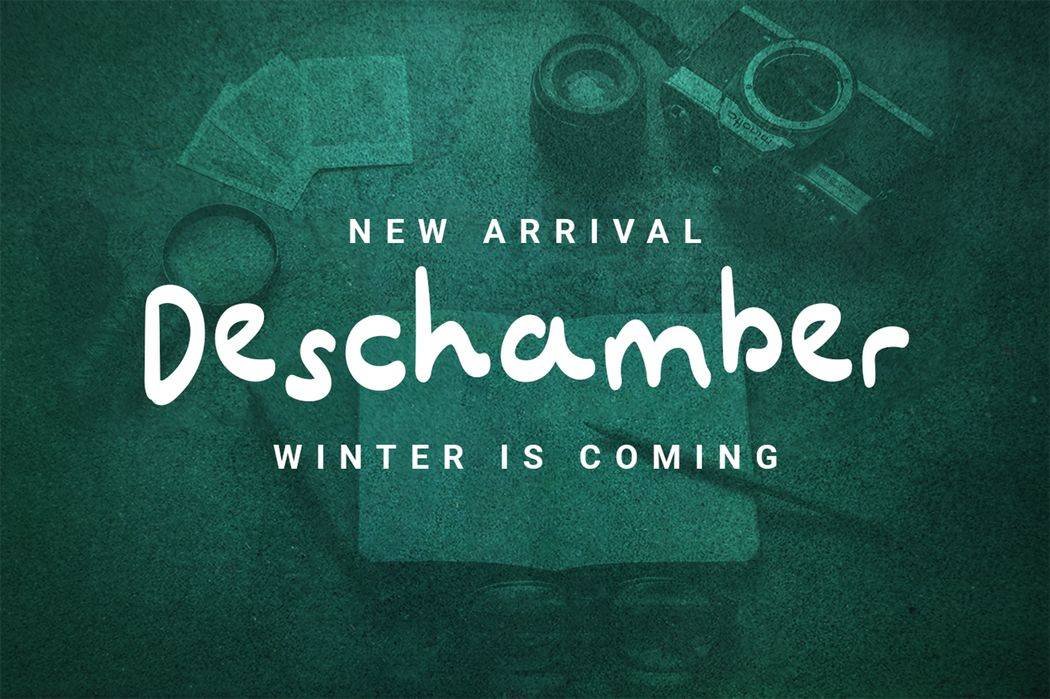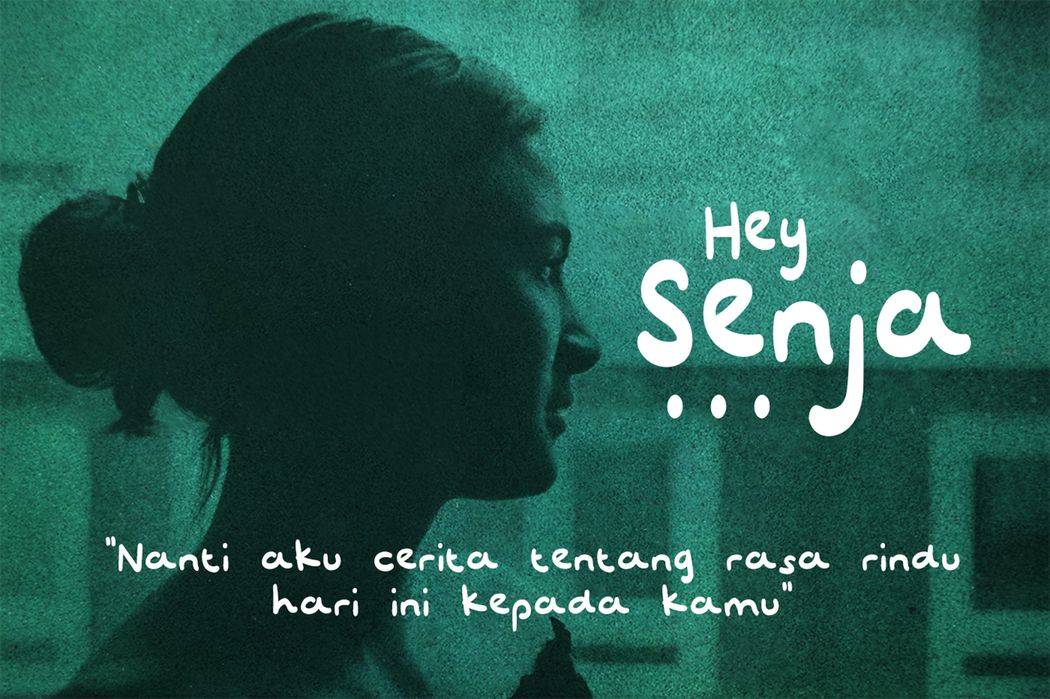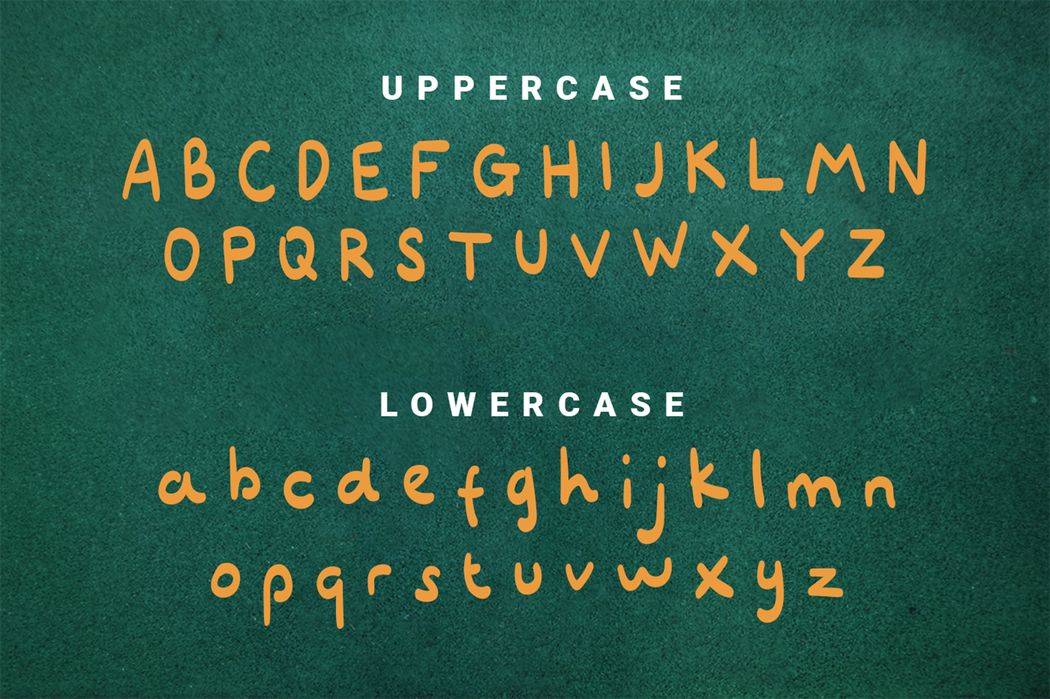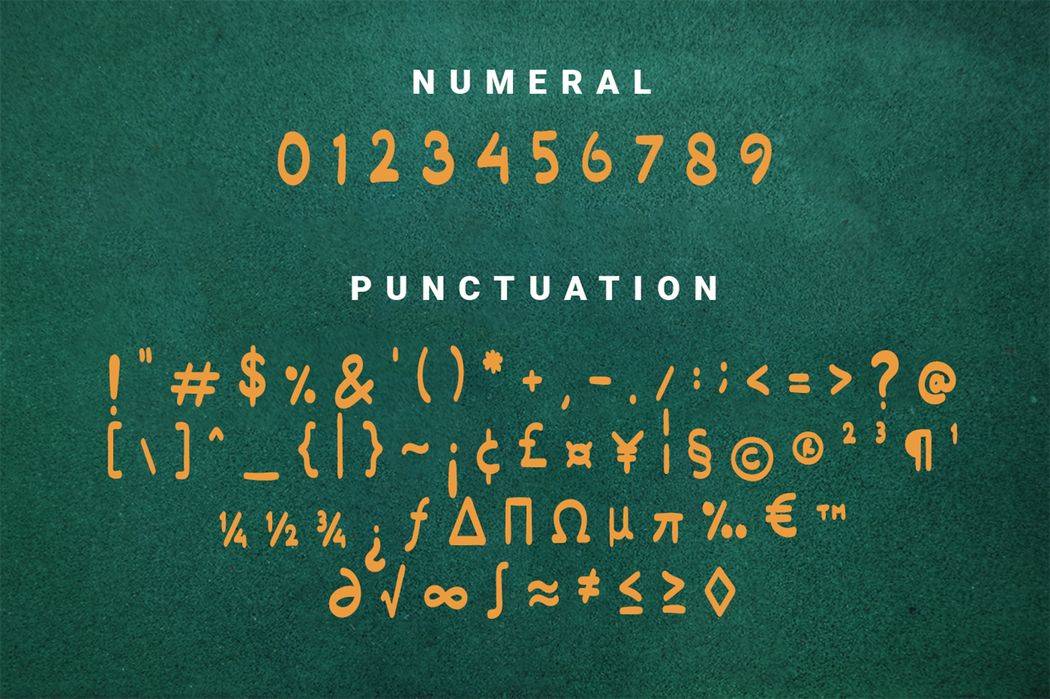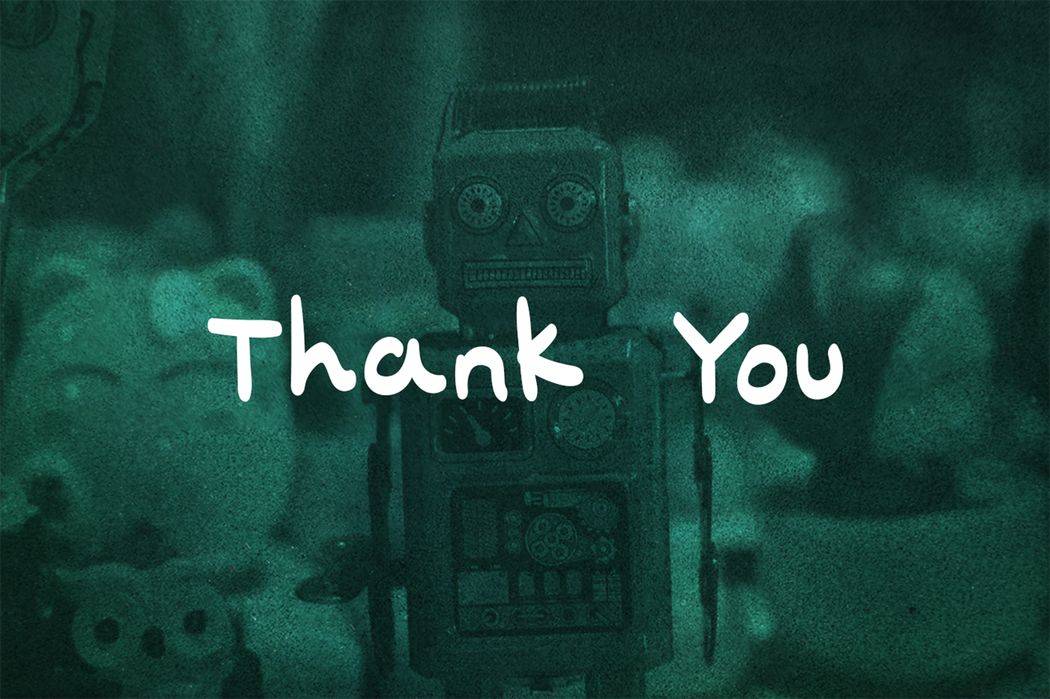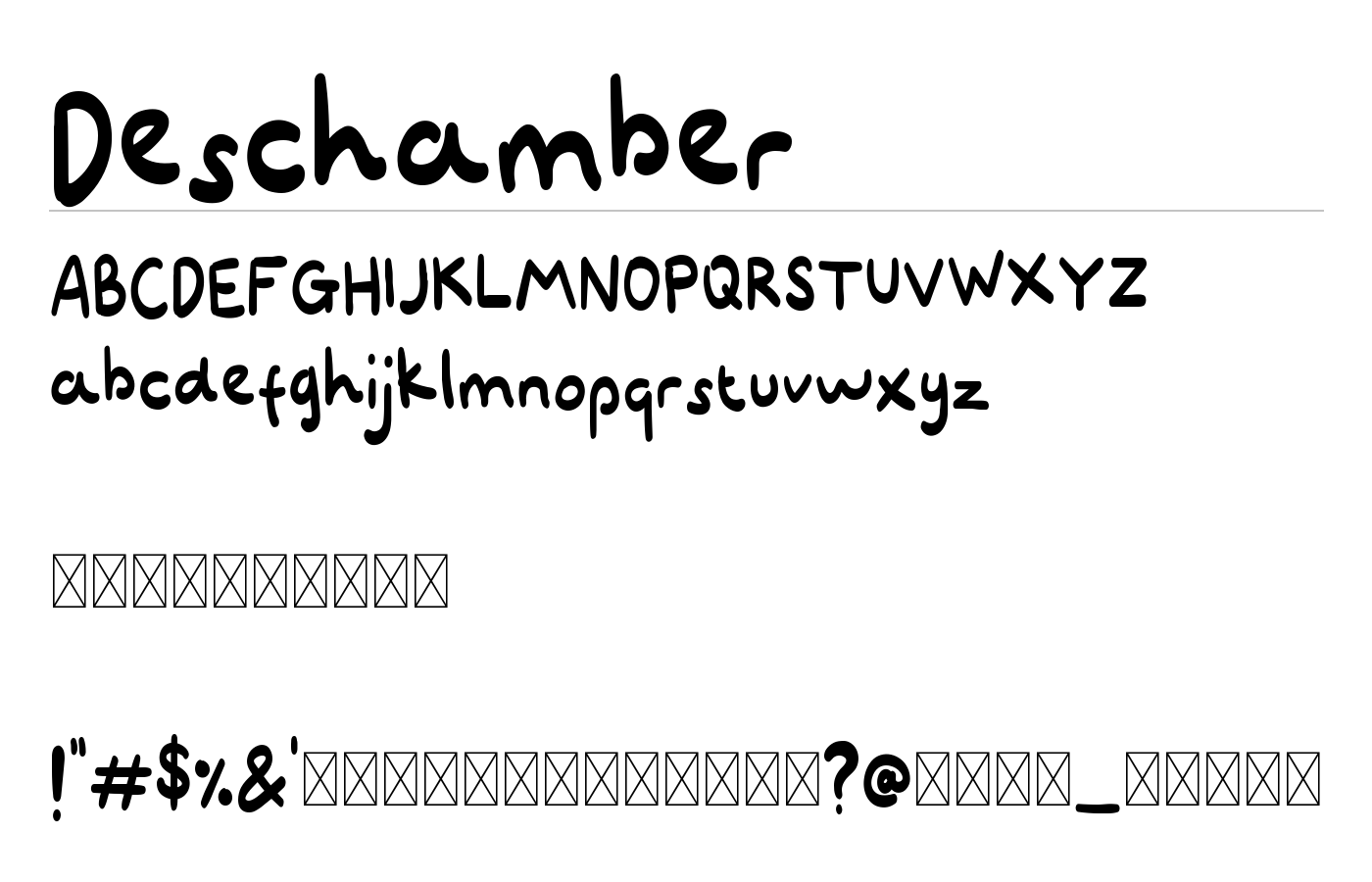
Deschamber is a playful and casual handwritten sans serif font with a friendly, approachable character. Its slightly irregular shapes and moderate x-height give it a natural, informal feel, perfect for projects that want to convey warmth and creativity. This font works well for children’s books, casual branding, invitations, and any design that benefits from a personal touch.
| Font family | Deschamber Font |
| Release date | 2019-12-02 |
| Designer | Letterature Std. |